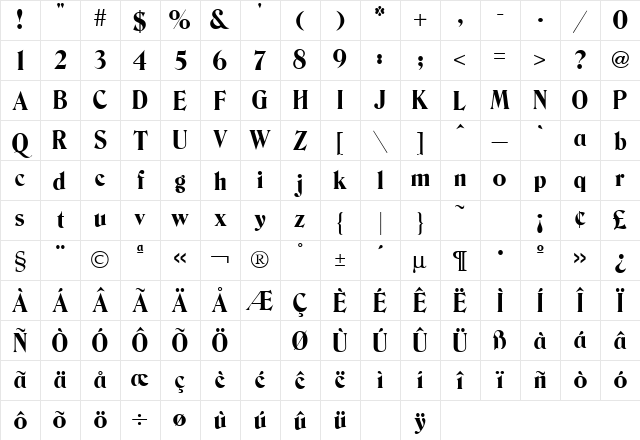
Bernase Roman Regular
Design Context for Bernase Roman
Bernase Roman is a composed and adaptable typeface that performs quietly and consistently across a wide range of design contexts.